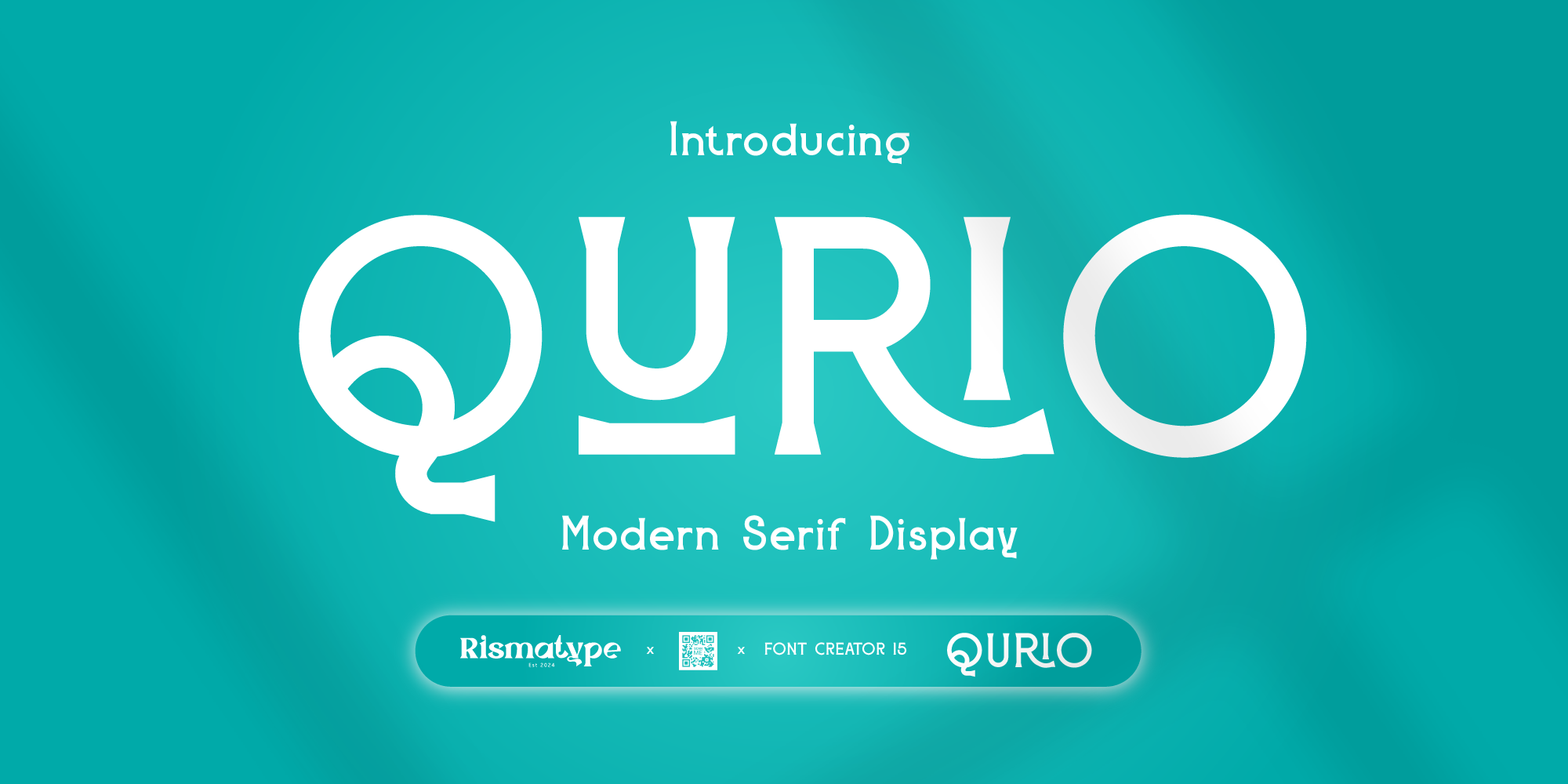
The Qurio Font is an excellent choice for designs that demand a distinctive, modern, and often playful aesthetic, perfect for capturing attention with a touch of character. Imagine it gracing the covers of indie games, adding a unique and inviting feel to creative startup branding, or bringing a spontaneous, artistic vibe to social media graphics. It's also perfectly suited for captivating event invitations, unique product packaging for artisan goods, and any project where you want to evoke a sense of individuality and warmth. With its characteristic forms and often friendly appeal, the Qurio Font is ideal for projects that seek a memorable and engaging impression.
What makes the Qurio Font truly exciting is its ability to infuse designs with immediate personality and a touch of bespoke artistry. It feels less like a sterile typeface and more like something created with care, giving your content an authentic and relatable quality. This font is perfect for establishing a brand identity that feels approachable, imaginative, and genuinely unique, ensuring your visual communication is not just seen, but felt on a personal level. The subtle variations in its strokes or its distinctive stylistic elements ensure it stands out in a crowded visual landscape, making your designs truly memorable. The Qurio Font Free Download offers a fantastic opportunity to bring this distinctive character to your creative work.
The Qurio Font family is typically designed to offer versatility while maintaining its signature charming and distinctive style. While specific family members can vary, you can often expect to find:
Qurio Regular
Qurio Bold (for added emphasis on titles or key phrases)
Qurio Italic (for a slanted, more dynamic look)
Qurio Outline (for a unique display effect)
Qurio Textured (or similar variations that add a handcrafted or distressed feel)
These variations provide flexibility for different design applications, allowing you to create engaging visual hierarchies and maintain a consistent, charming aesthetic across all your projects.